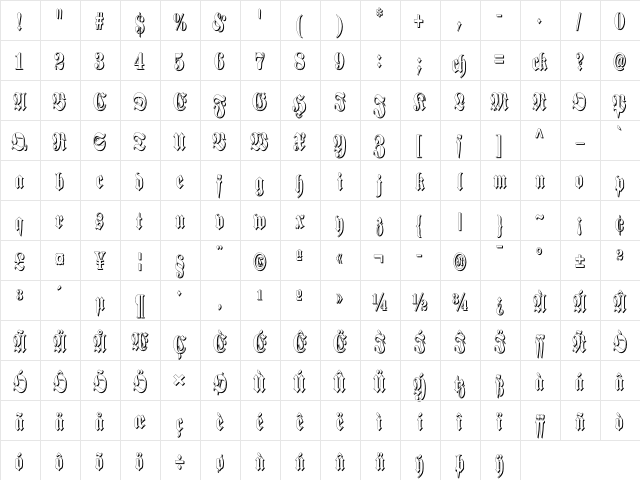
Schmalfette Fraktur Schattiert Regular
| Designer | Dieter Steffmann |
Design Context for Schmalfette Fraktur Schattiert Typeface
Schmalfette Fraktur Schattiert channels the dramatic heritage of Fraktur and Gothic scripts, bringing a sense of historical gravitas to any design.
Well-suited to band logos, craft beer branding, tattoo lettering, and heritage-themed identities.
Font Pairing: Pair with a clean neutral sans-serif for body copy to let Schmalfette Fraktur Schattiert's character lead without overwhelming the composition.
Pro Tip: Use Schmalfette Fraktur Schattiert sparingly at large sizes. Even a single word set in blackletter can define the visual register of an entire design.